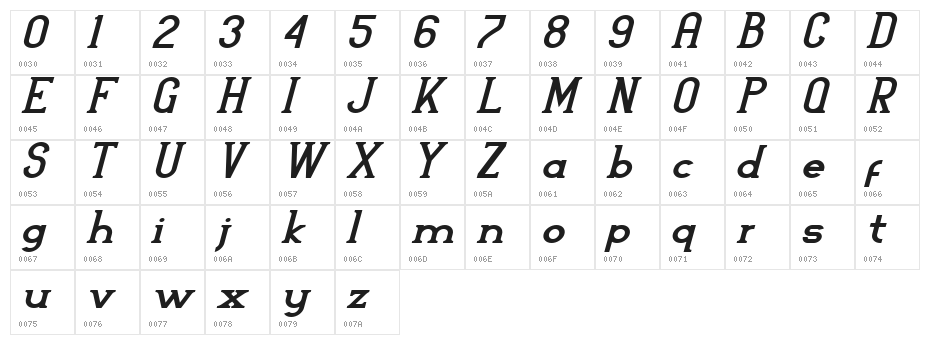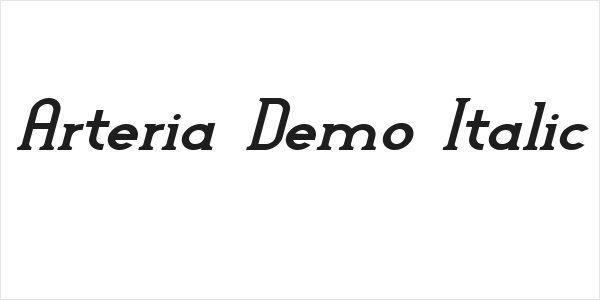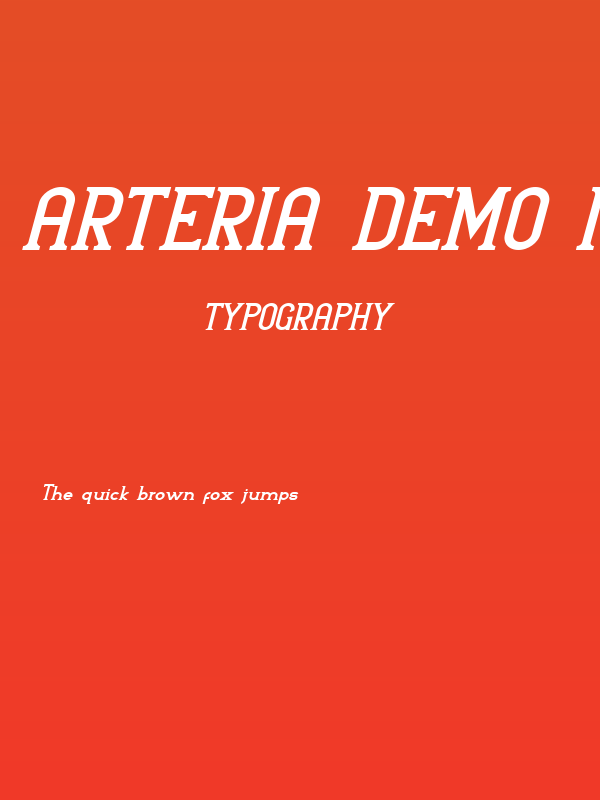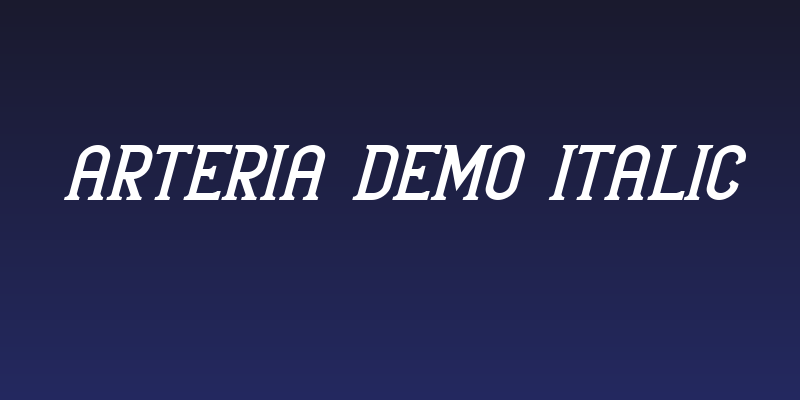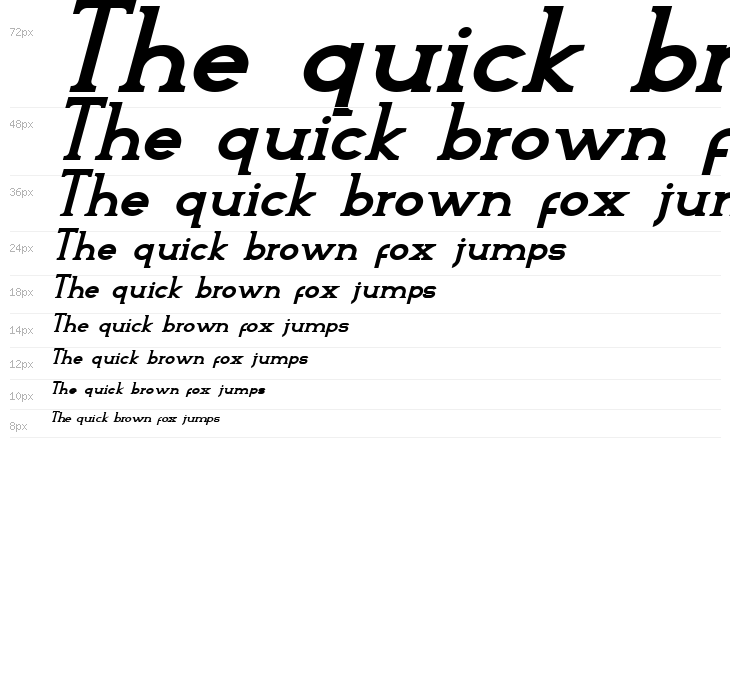
Arteria-Demo Italic Font
Arteria-Demo Italic Description
This font features a dynamic and elegant italic style with a slight slant, giving it a sense of movement and sophistication. The characters are well-defined with a moderate stroke contrast, making them highly legible while maintaining a stylish appearance. The uppercase letters are bold and commanding, while the lowercase letters offer a softer, more approachable look. The numerals are consistent with the overall design, ensuring readability. This font is versatile, suitable for both formal and creative applications, and its unique style makes it stand out in any design project.
Proposed ProjectsIdeal for branding, editorial design, advertising, and packaging where a touch of elegance is desired.